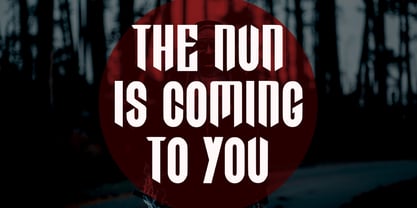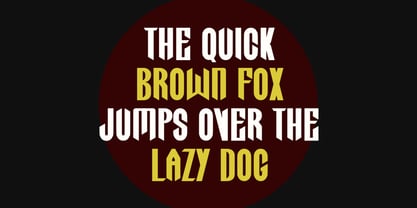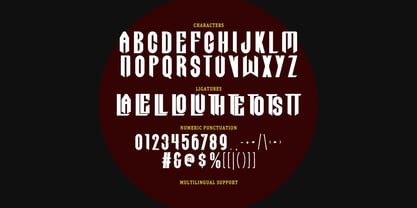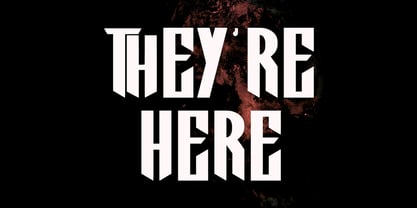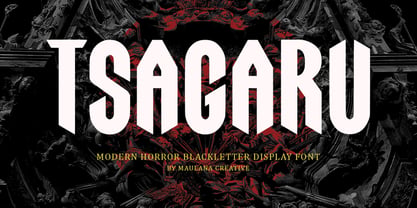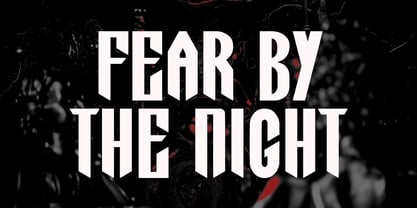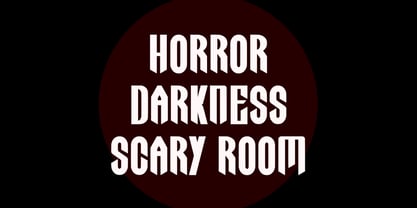
MC Tsagaru
von Maulana Creative
Die Schriftfamilie MC Tsagaru wurde von Gilang Maulana entworfen und von Maulana Creative veröffentlicht. MC Tsagaru enthält 1 Stile. Mehr über diese Familie
Unleash the darkness with Tsagaru, a spine-chilling blackletter display font designed to bring a hauntingly modern edge to your creative projects. Inspired by classic gothic aesthetics and infused with sharp, aggressive geometric angles, Tsagaru strikes the perfect balance between ancient mystery and contemporary horror. Every character is meticulously crafted to evoke a sense of dread and power, making it the ultimate choice for horror movie titles, metal band logos, Halloween branding, and occult-themed designs. Whether you're designing a social media for a psychological thriller or a poster for a dark fantasy game, Tsagaru provides a commanding presence that jumps off the page.
Designer: Gilang Maulana
Foundry: Maulana Creative